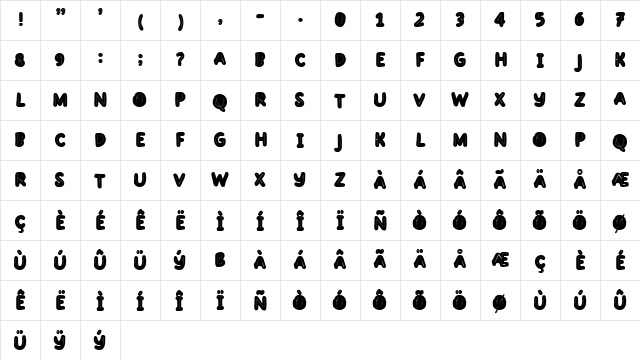
Rope A Dope Demo Regular
| Foundry | epiclinez |
| Designer | Aldy Sidik |
Design Context for Rope A Dope Demo Typeface
Rope A Dope Demo is a composed and adaptable typeface that performs quietly and consistently across a wide range of design contexts.